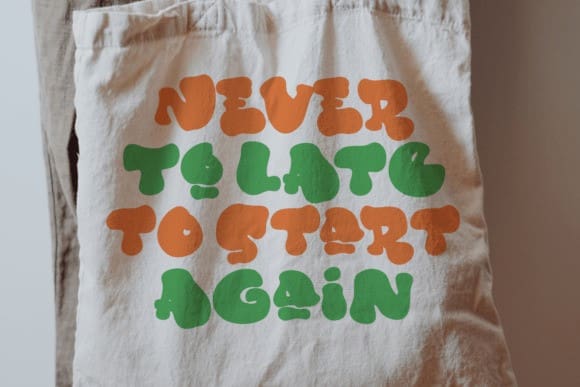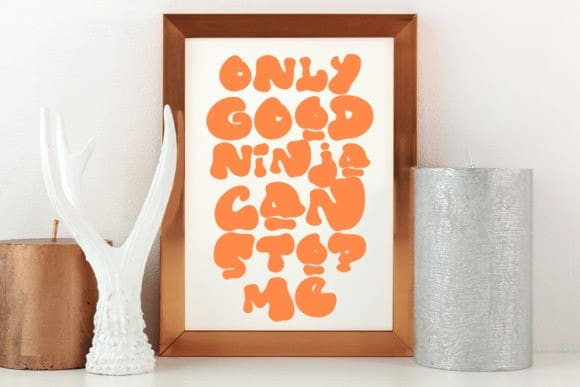
Wild Jackal Font
Wild Jackal Font is an incredibly unique and interesting display font. Whimsical and a little bit quirky, this font will make each of your designs stand out.